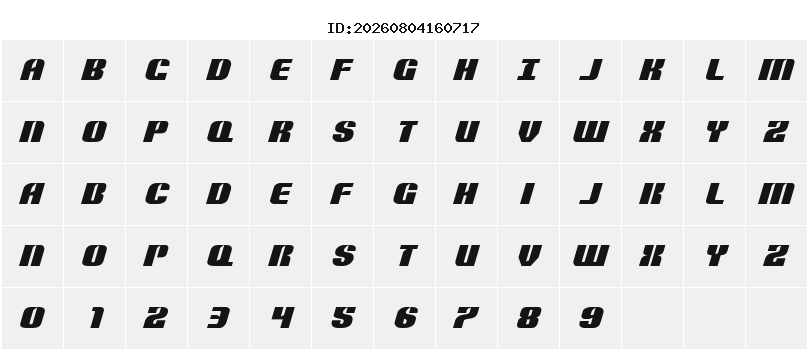
Nightwraith Expanded Preview
• Font Name: Nightwraith Expanded
• Font Style: Expanded Italic
• Full Font Name: Nightwraith Expanded Italic
About Nightwraith Expanded.ttf
Nightwraith Expanded.ttf is a modern, elegant sans-serif font designed for ultimate readability and visual harmony. Perfect for branding, headlines, web design, and print materials.